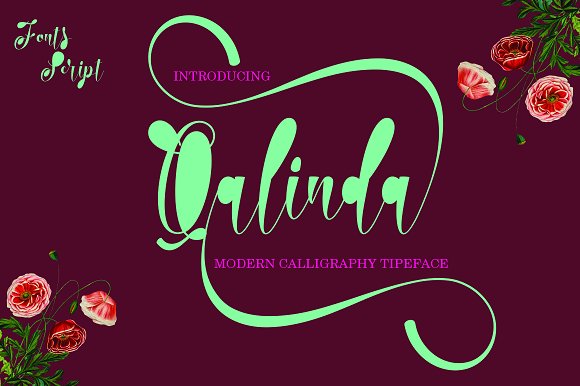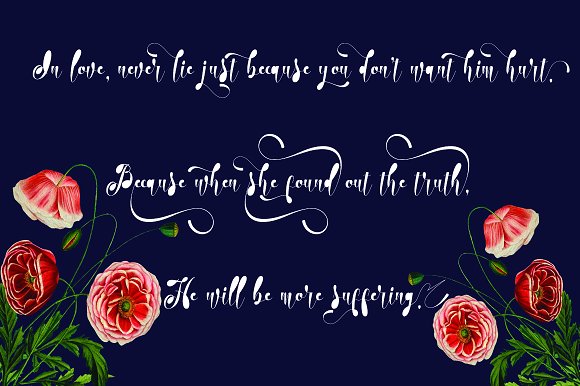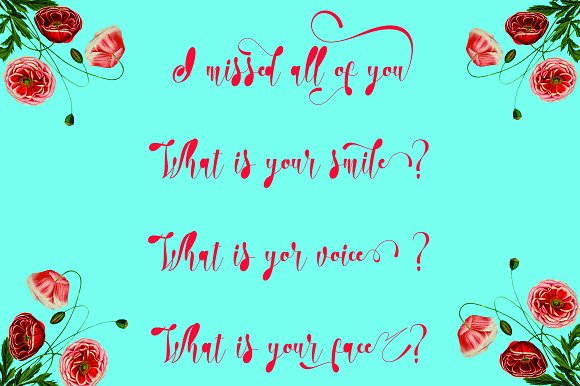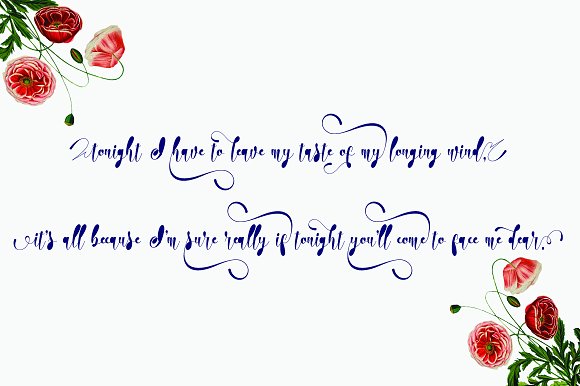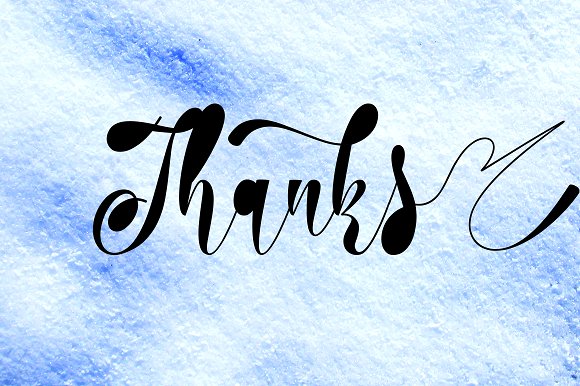
Qalinda Font
About Qalinda Font
Qalinda is a elegant calligraphic font that features a varied base line. The letters are filled to give the font a unique twist.